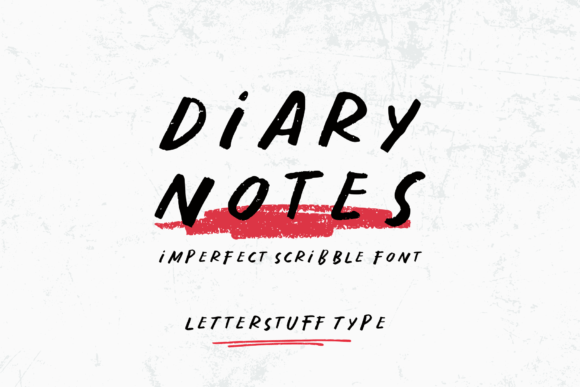
Are you tired of the same old boring fonts? Looking for something unique and captivating to add a touch of personality to your writings? Look no further! Introducing Diary Notes Font, the best font for Sublime Text 3 that will elevate your writing game to a whole new level.
Created by herbanuts, Diary Notes Font is more than just a font - it's an experience. This script font will transport you back to the good old days of handwritten diary notes, where every stroke carried a sense of authenticity and emotion. With its fun and organic design, Diary Notes Font captures the essence of personal expression and adds a touch of whimsy to any text.
Imagine writing down your daily thoughts and plans with the charming scribble-like strokes of Diary Notes Font. It's like pouring your heart onto paper, creating a personal connection between you and your words. Whether you're jotting down your dreams, making a to-do list, or writing a heartfelt letter, Diary Notes Font adds an extra layer of emotion and creativity.
But Diary Notes Font is not just about aesthetics - it's also incredibly versatile. It's the perfect companion for any occasion, whether you're planning a late-night adventure or meeting friends for brunch. This font exudes a sense of excitement and spontaneity, making you want to get out there and embrace life to the fullest.
With Diary Notes Font, your words will come alive on the screen. Its unique style will captivate readers and leave a lasting impression. Say goodbye to dull and generic fonts, and say hello to a font that truly speaks to your soul.
So why wait? Embrace the magic of Diary Notes Font and let your imagination run wild. Whether you're a professional writer, a creative enthusiast, or simply someone who appreciates the beauty of handwritten fonts, Diary Notes Font is the perfect choice for you.
Capture the essence of handwritten diary notes with Diary Notes Font and let your words tell a story like never before. Download now and embark on a journey of creativity and self-discovery. Don't settle for ordinary - choose extraordinary with Diary Notes Font.